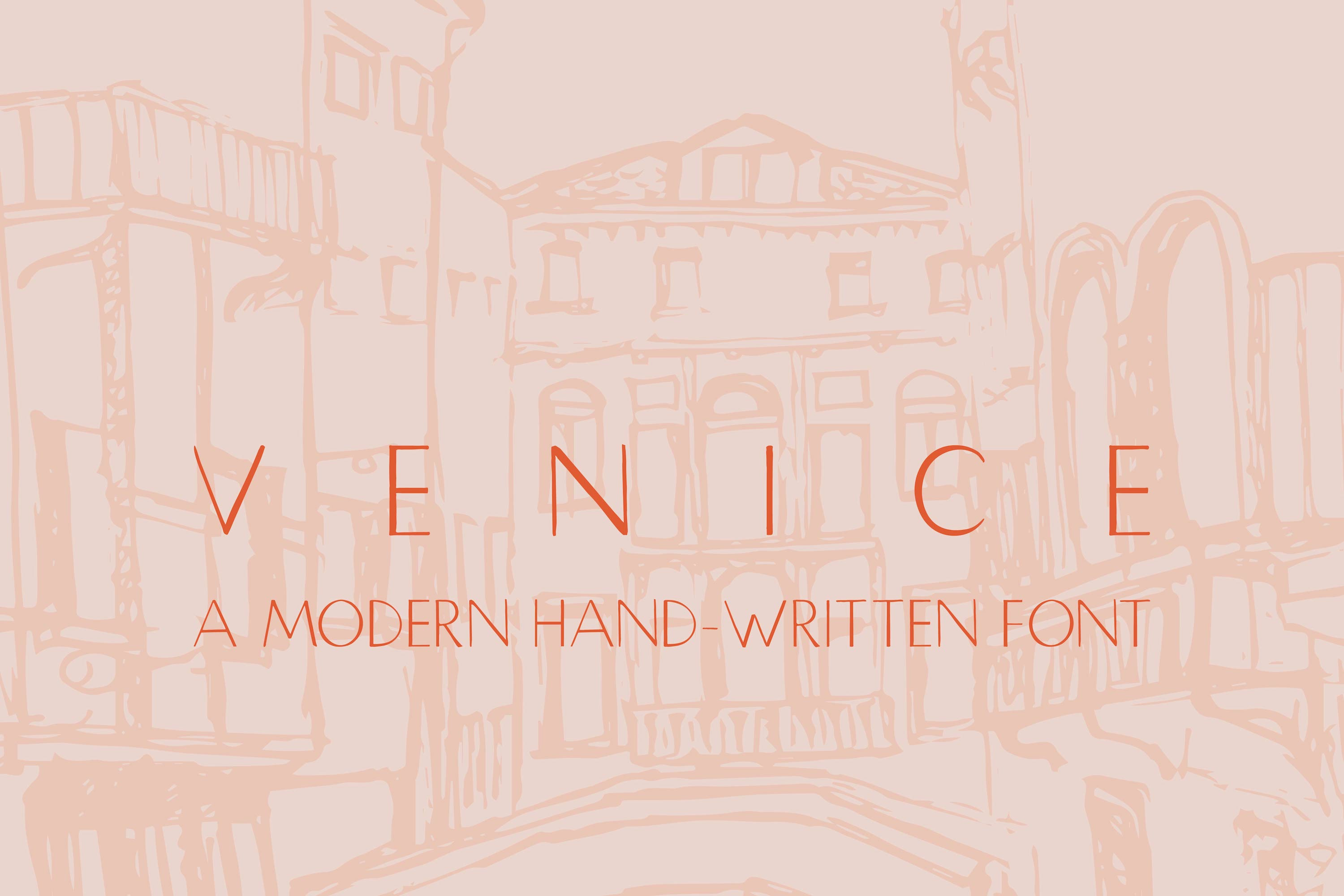
Venice | Hand Drawn Font
Hand-Drawn minimalist font inspired by geometry and The Greek Renaissance. Use font to create everything from elegant LOGOs to beautiful stationery.